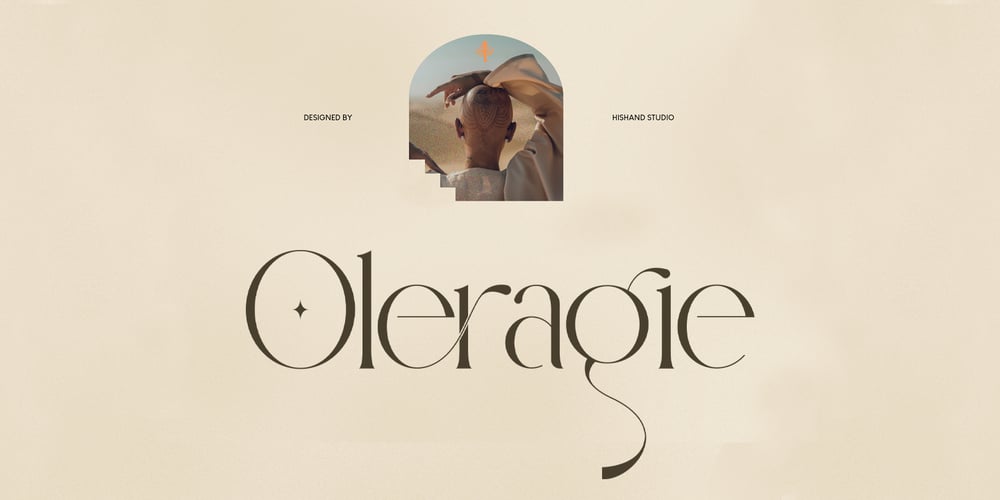
Oleragie
Oleragie font
Oleragie Font Family was designed by Putu Dody Permana and published by Hishand Studio. Oleragie contains 3 styles and family package options. Introducing Oleragie, a classic modern serif with an aesthetic look inspired by the Egyptian and middle east atmosphere. Perfect for those who need a touch of elegance, stylish, classy, beautifully thin, and modernity for their design. Complete with ligatures alternates regular italic icon kerning multilingual support